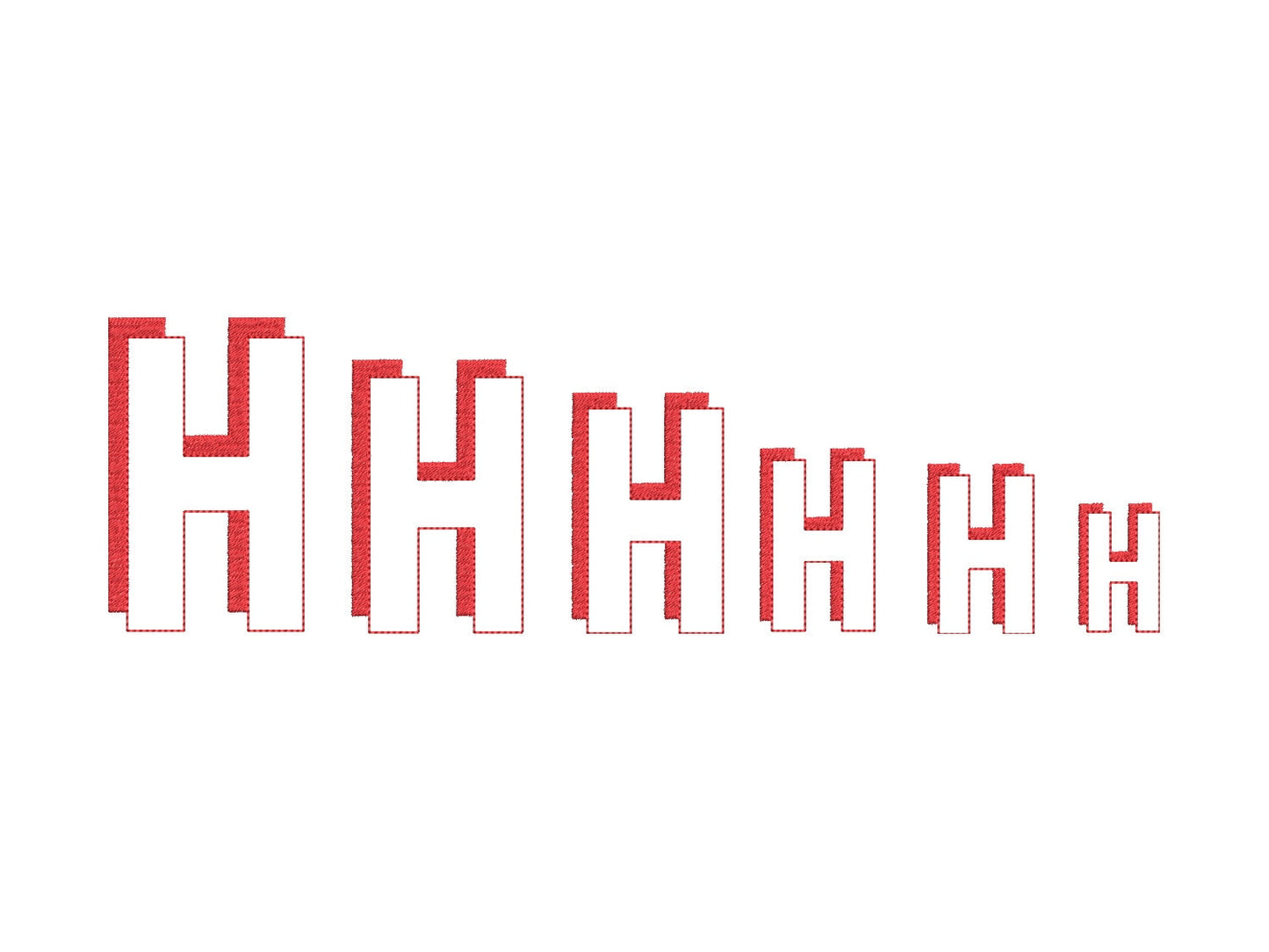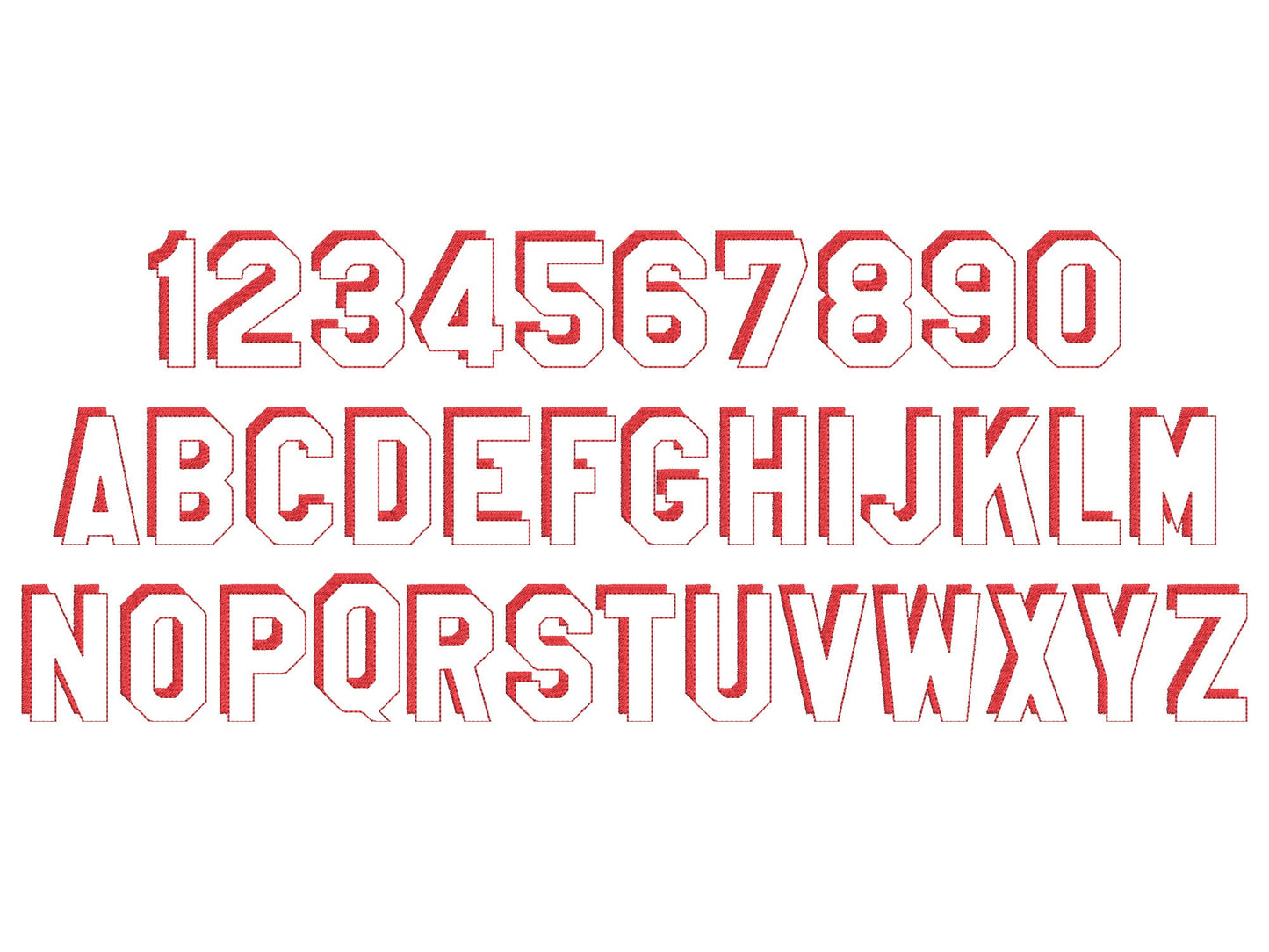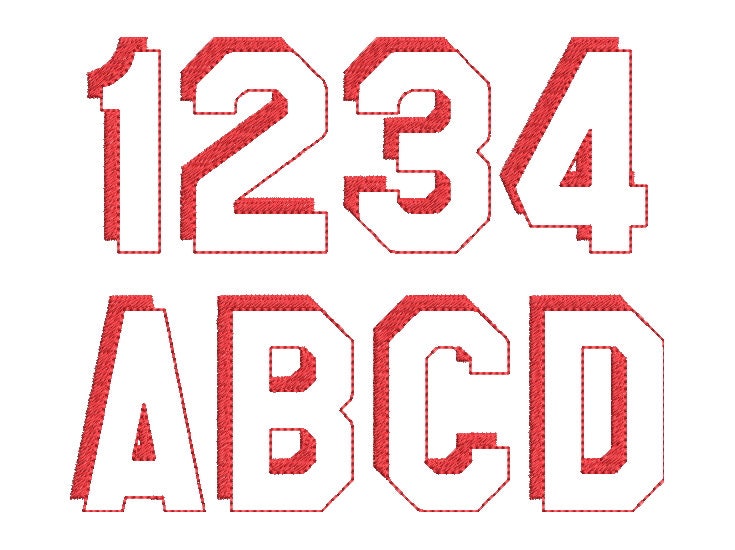
Sport Block Shadow Light Font
Or click to open the linkA light sport block font with a shadow. Great for monograms, team shirts, caps and bags.
Uppercase letters A to Z, numbers 0 to 9 and an ampersand. Six sizes: 1.5, 2, 2.5, 3, 3.5 and 4 inches.